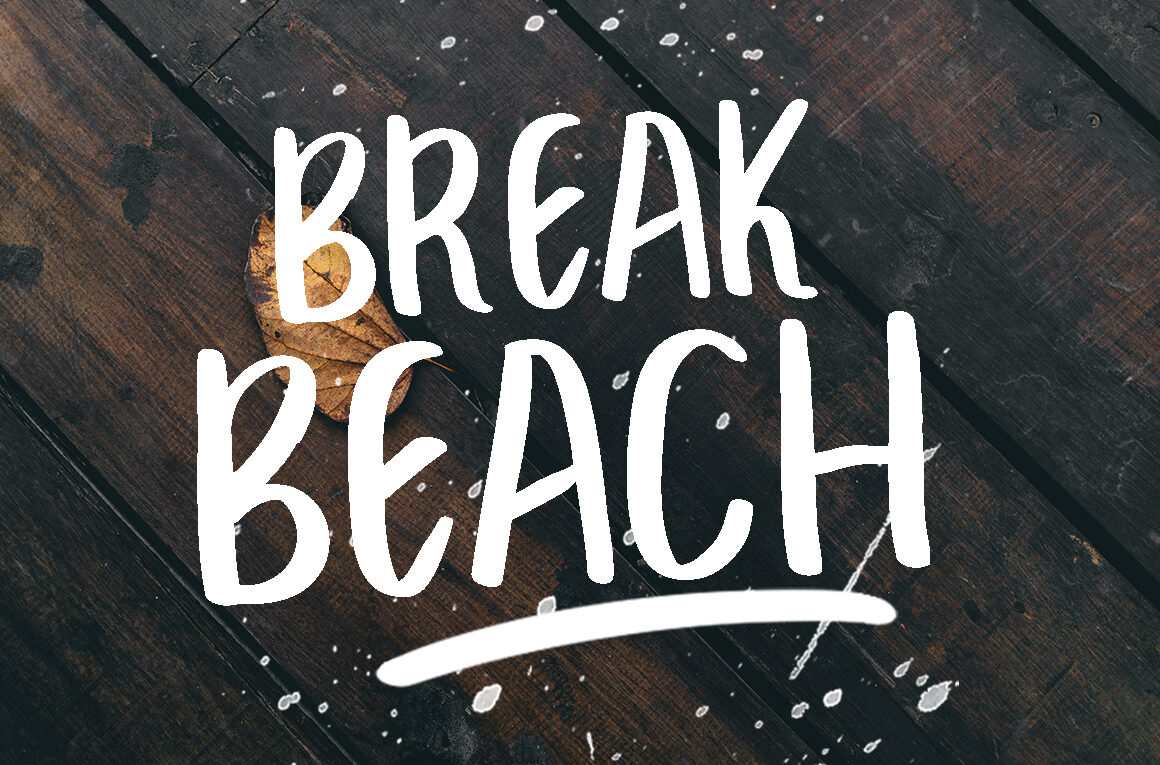
Introducing Break Beach Font: A Beautiful Handmade Brush Font
Are you looking for a font that can add a personal touch to your designs? Look no further than Break Beach Font, a stunning handmade brush font that is perfect for a wide range of design projects. With its straightforward approach and style, Break Beach Font is ideal for designers and crafters who want to add a unique and creative element to their work.
What is Break Beach Font?
Break Beach Font is a beautiful handmade brush font that features a unique and stylish design. The font has a straightforward approach and style, making it easy to read and use in a variety of design projects. The font is perfect for headlines, titles, and other display text, and its handmade brush style gives it a personal and creative feel.
Key Features of Break Beach Font
- Handmade Brush Style: Break Beach Font features a beautiful handmade brush style that gives it a unique and creative look.
- Straightforward Approach: The font has a straightforward approach and style, making it easy to read and use in a variety of design projects.
- Ideal for Headlines: Break Beach Font functions best as a headline font, making it perfect for adding a bold and eye-catching element to your designs.
- Wide Range of Design Applications: The font looks ideal across a wide range of designs and styles, from modern and minimalist to vintage and distressed.
Why Use Break Beach Font?
There are many reasons why designers and crafters should consider using Break Beach Font in their work. Here are just a few:
- Add a Personal Touch: Break Beach Font’s handmade brush style gives it a personal and creative feel that can add a unique touch to your designs.
- Stand Out from the Crowd: The font’s unique style and design make it a great way to stand out from the crowd and add a bold and eye-catching element to your work.
- Easily Readable: Despite its creative and artistic style, Break Beach Font is easy to read and use in a variety of design projects.
- Versatile: The font looks ideal across a wide range of designs and styles, making it a versatile and practical choice for designers and crafters.
Design Applications for Break Beach Font
Break Beach Font is perfect for a wide range of design applications, including:
- Headlines and Titles: The font functions best as a headline font, making it perfect for adding a bold and eye-catching element to your designs.
- Logos and Branding: Break Beach Font’s unique style and design make it a great choice for logos and branding projects.
- Invitations and Stationery: The font’s handmade brush style gives it a personal and creative feel that is perfect for invitations and stationery.
- Packaging and Labels: Break Beach Font is a great choice for packaging and labels, adding a bold and eye-catching element to your designs.
Tips for Using Break Beach Font
Here are a few tips for using Break Beach Font in your design projects:
- Use it as a Headline Font: Break Beach Font functions best as a headline font, so use it to add a bold and eye-catching element to your designs.
- Experiment with Different Colors: The font’s handmade brush style looks great in a variety of colors, so experiment with different colors to find the one that works best for your design.
- Pair it with Other Fonts: Break Beach Font looks great when paired with other fonts, so experiment with different font combinations to find the one that works best for your design.
| Font Name | Break Beach Font |
| Author | Eldertype Studio |
Break Beach Font is a beautiful handmade brush font that is perfect for designers and crafters who want to add a unique and creative element to their work. With its straightforward approach and style, the font is easy to read and use in a variety of design projects. Whether you’re looking to add a bold and eye-catching element to your designs or simply want to add a personal touch, Break Beach Font is a great choice.